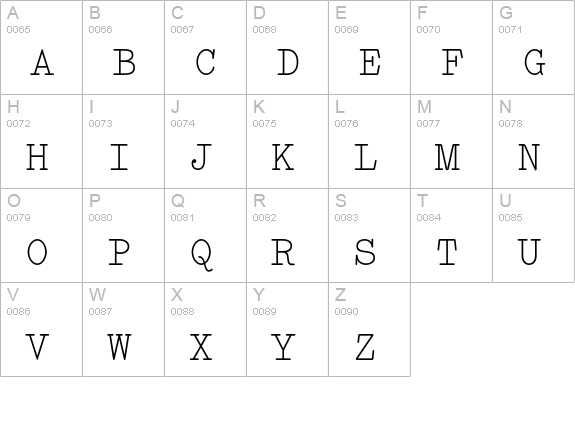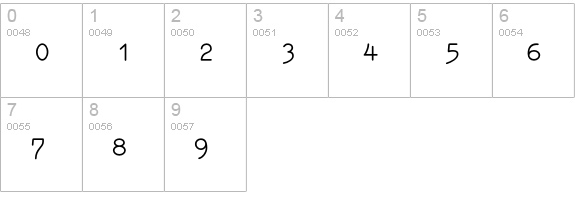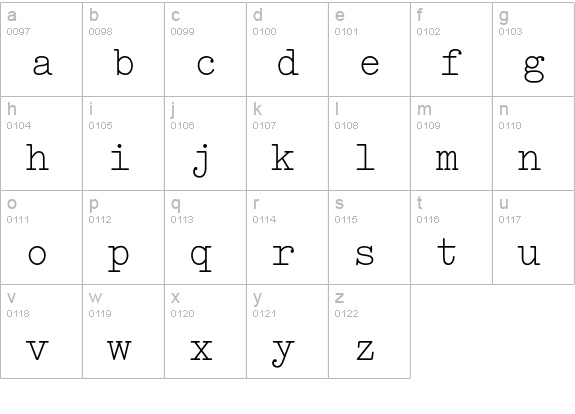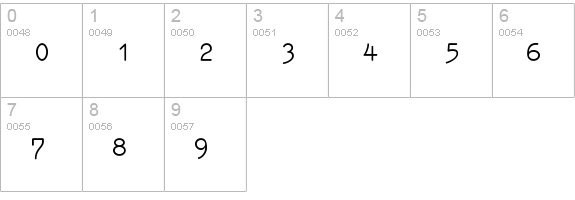
Elementa Symbol Regular Font Details
Elementa Symbol Regular is the standard, neutral variant in the Elementa typeface family \xE2\x80\x94 well suited to general body text, paragraphs, and standard typographic work.
Elementa Symbol Regular is a versatile and elegant typeface that exudes sophistication and modernity. With its clean lines and sleek design, this font is perfect for a wide range of applications, from branding and logo design to editorial and web use. Its geometric shapes and sharp angles give it a contemporary feel, while its simplicity ensures readability and clarity in any context. One of the best things about Elementa Symbol Regular is that it is completely free to download. You can easily access this exquisite font at FontsMarket.com, where you can add it to your collection without any cost. Whether you are a designer looking to elevate your projects or a business owner seeking a fresh look for your brand, Elementa Symbol Regular is a fantastic choice that won't break the bank. Download it today and discover the endless possibilities this font has to offer.